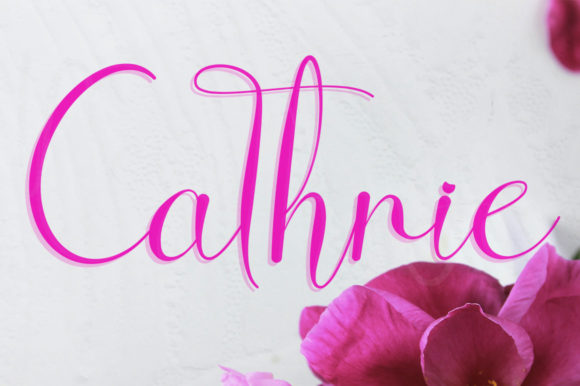
Step into a world of elegance and timeless beauty with Cathrie Font, the captivating script font that will leave you breathless. Designed by the talented fahmistudio99, Cathrie exudes a romantic charm that will elevate your designs to new heights.
With its graceful curves and delicate strokes, Cathrie is the perfect choice for creating signature blocks that radiate sophistication and individuality. Let your creativity shine as you craft unique messages that reflect your personal style.
Cathrie's versatility extends beyond signature blocks, lending its charm to wedding invitations, greeting cards, and any design that calls for a touch of elegance. Transform your projects into masterpieces, captivating your audience with the timeless beauty of this stunning script font.
Unleash your creativity and let Cathrie add a touch of enchantment to your creations. From love letters that convey your deepest emotions to design projects that exude a timeless allure, Cathrie will become your trusted companion in the world of design.
Indulge in the romance and elegance of Cathrie Font, and discover the endless possibilities of creative expression. Let your imagination soar as you create designs that captivate and inspire, leaving a lasting impression on all who encounter them.